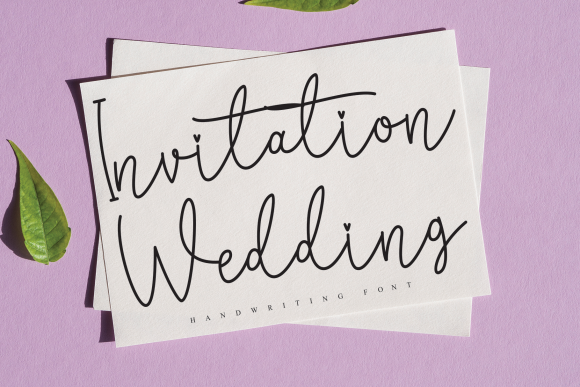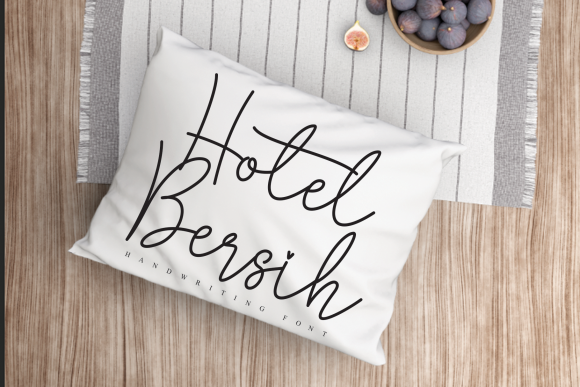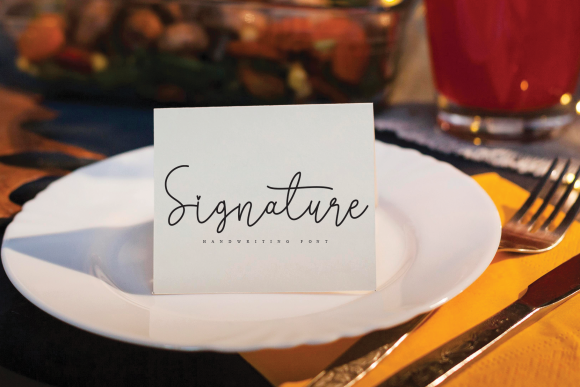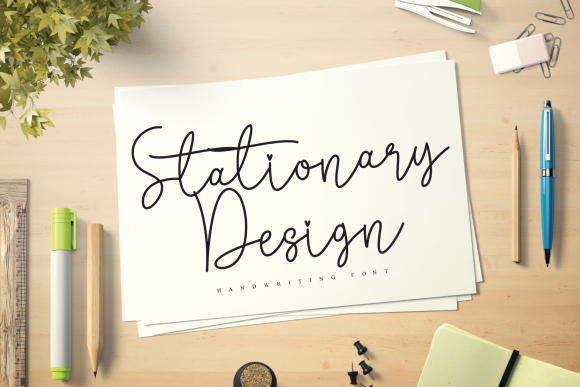
Discover the Heaven Writing Font: Elevate Your Designs with a Touch of Whimsy
Are you tired of using the same old fonts in your designs? Look no further than the Heaven Writing Font, a thin and natural handwritten font that’s sure to add a touch of magic to your projects. With its whimsical and quirky charm, this font is perfect for designers and crafters looking to create unique and eye-catching designs.
What is the Heaven Writing Font?
The Heaven Writing Font is a beautiful, handwritten font that’s designed to evoke a sense of natural elegance. Its thin strokes and flowing lines give it a delicate, airy feel that’s perfect for creating designs that are both feminine and sophisticated. Whether you’re working on a branding project, a craft tutorial, or a digital design, this font is sure to add a touch of personality to your work.
Key Features of the Heaven Writing Font
- Thin and natural handwritten font: The Heaven Writing Font features delicate, hand-drawn strokes that give it a unique, organic feel.
- Whimsical and quirky: This font has a playful, charming quality that’s perfect for designers who want to add a touch of personality to their work.
- Perfect for a variety of projects: From branding and advertising to crafting and digital design, this font is versatile enough to use in a wide range of applications.
- Easily readable: Despite its delicate strokes, the Heaven Writing Font is easy to read, making it perfect for use in body text or headlines.
How to Use the Heaven Writing Font in Your Designs
So, how can you use the Heaven Writing Font in your designs? Here are a few ideas to get you started:
- Branding and logos: Use the Heaven Writing Font to create a unique and memorable logo for your brand. Its whimsical charm is sure to help your brand stand out.
- Craft tutorials and projects: Add a touch of personality to your craft tutorials and projects with the Heaven Writing Font. It’s perfect for creating titles, headings, and other design elements.
- Digital design: Use the Heaven Writing Font in your digital designs, such as social media graphics, blog posts, and email newsletters. Its delicate strokes and flowing lines are sure to add a touch of elegance to your designs.
Tips for Getting the Most Out of the Heaven Writing Font
Here are a few tips for getting the most out of the Heaven Writing Font:
- Experiment with different colors and textures: The Heaven Writing Font looks great in a variety of colors and textures. Experiment with different combinations to find the one that works best for your design.
- Use it in combination with other fonts: The Heaven Writing Font pairs well with a variety of other fonts. Try combining it with a bold font for a striking contrast.
- Don’t be afraid to get creative: The Heaven Writing Font is a versatile font that can be used in a wide range of applications. Don’t be afraid to get creative and try new things.
The Heaven Writing Font is a beautiful, whimsical font that’s perfect for designers and crafters looking to add a touch of personality to their work. With its thin strokes, flowing lines, and quirky charm, this font is sure to brighten up any design. Whether you’re working on a branding project, a craft tutorial, or a digital design, the Heaven Writing Font is a great choice. So why not give it a try and see the magic it can add to your designs?
Key Benefits:
- Thin and natural handwritten font
- Whimsical and quirky
- Perfect for a variety of projects
- Easily readable
By incorporating the Heaven Writing Font into your designs, you’ll be able to:
- Create unique and eye-catching designs
- Add a touch of personality to your work
- Easily convey your message with a clear and readable font
The Heaven Writing Font is a versatile and beautiful font that’s sure to take your designs to the next level. Try it out today and discover the magic it can add to your work!